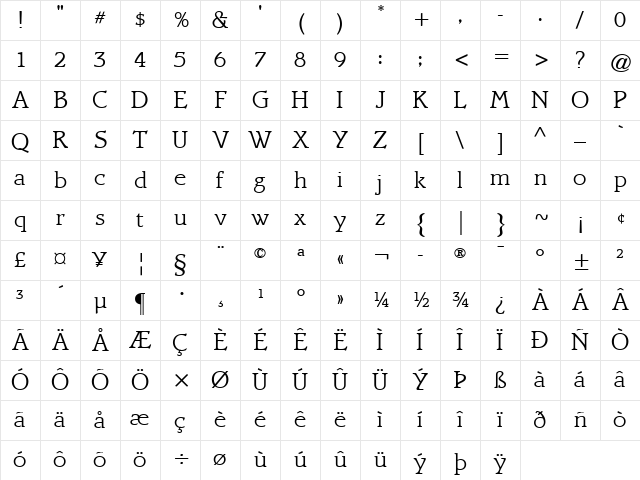
ATBramley Light Free Font
ATBramley Light
ATBramley Family
Design Context for ATBramley
ATBramley is a composed and adaptable typeface that performs quietly and consistently across a wide range of design contexts. Its slender proportions lend an understated elegance to any composition.